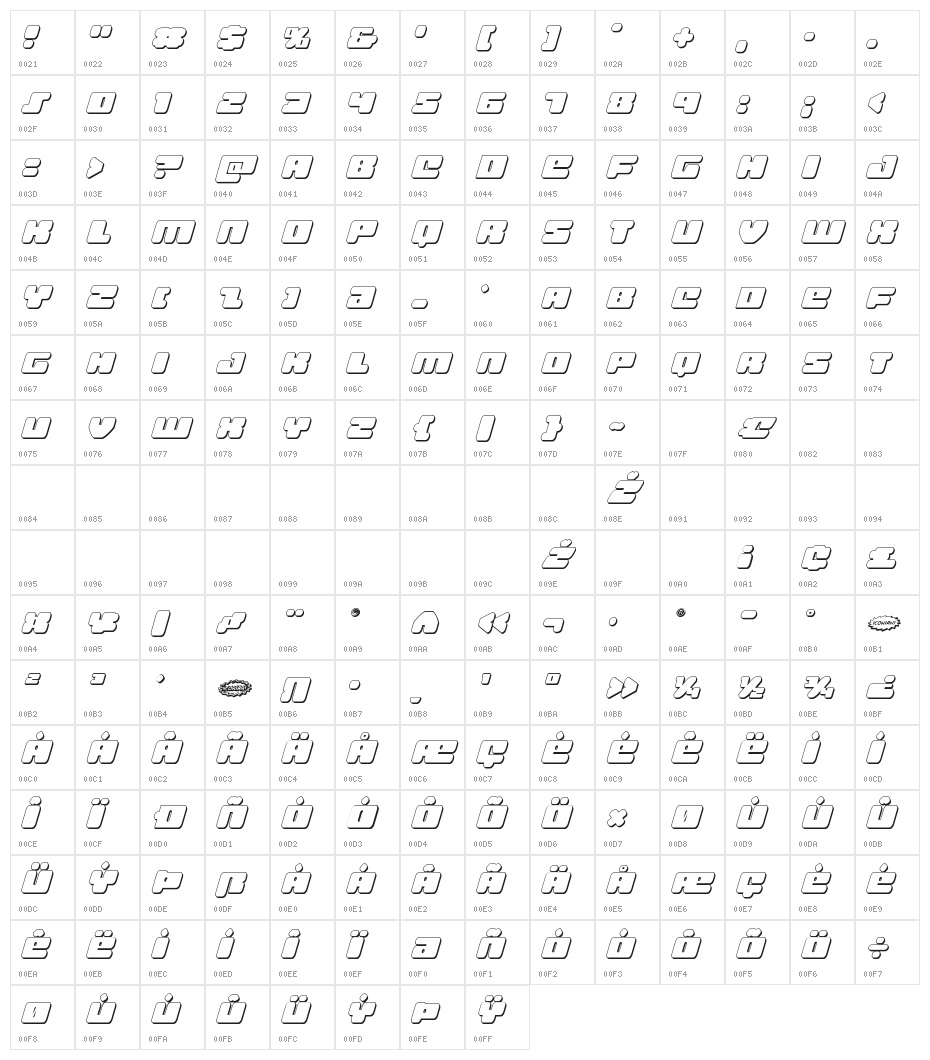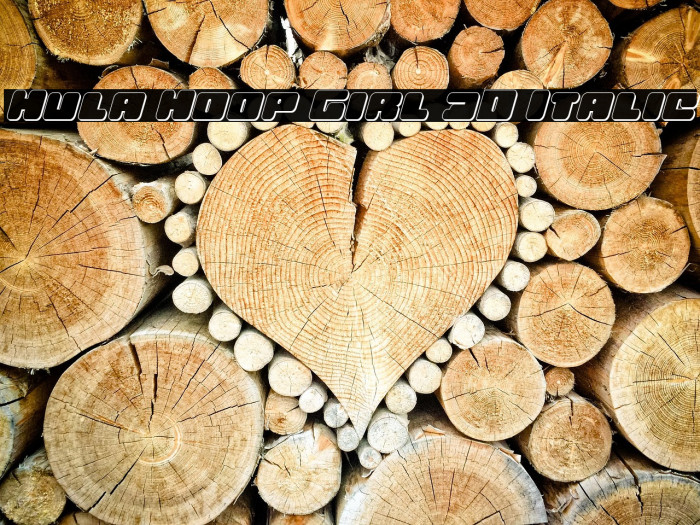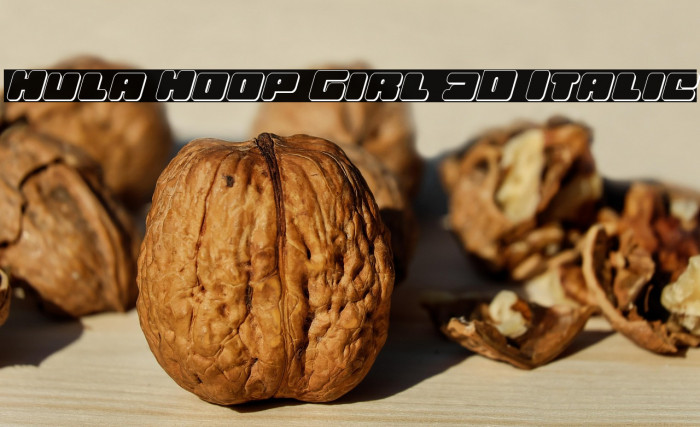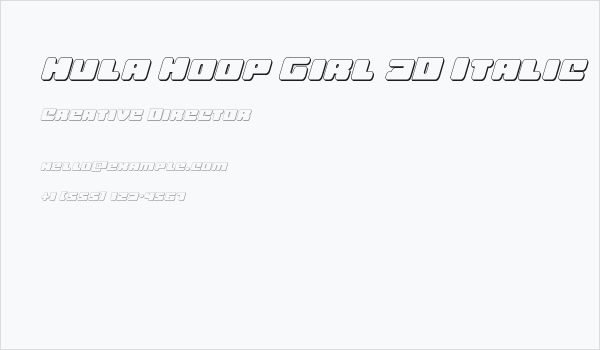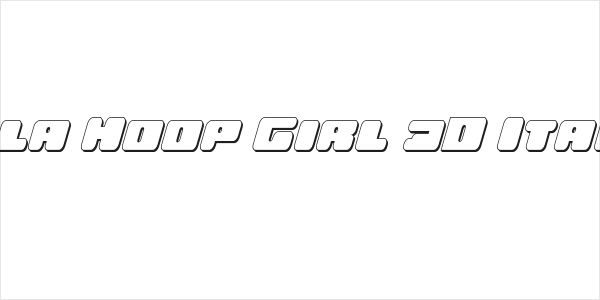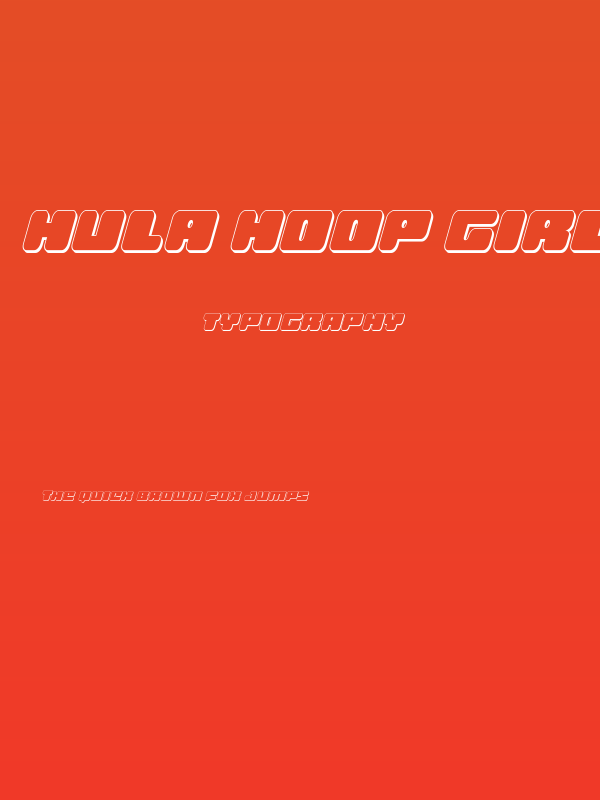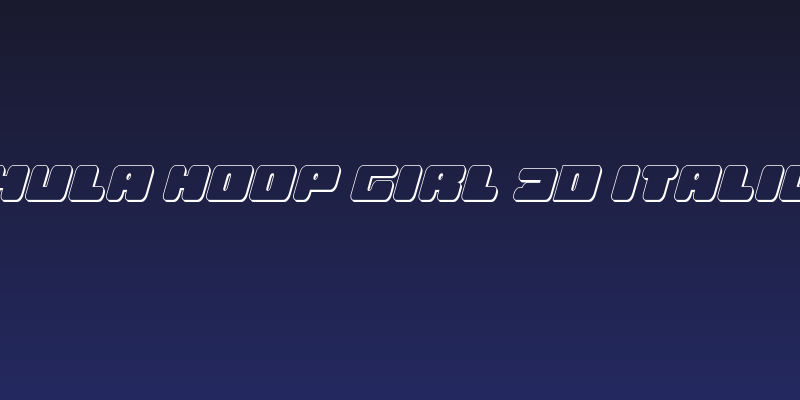
Hula Hoop Girl 3D Italic Font
Hula Hoop Girl 3D Italic Description
This font features a bold, three-dimensional style with a playful and modern aesthetic. The letters are outlined, giving them a hollow appearance that adds depth and interest. The characters are slightly italicized, enhancing their dynamic and energetic feel. The rounded edges and smooth curves contribute to a friendly and approachable look, making it suitable for creative and informal projects. The font maintains consistent thickness throughout, ensuring readability while still providing a unique visual impact. Its distinctive style makes it ideal for eye-catching designs.
| Proposed Projects | Ideal for posters, logos, children's books, and playful branding materials. |